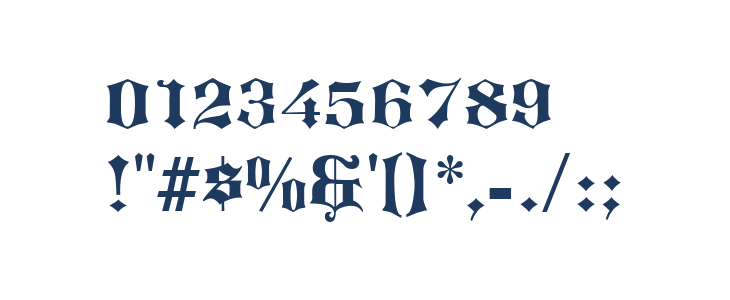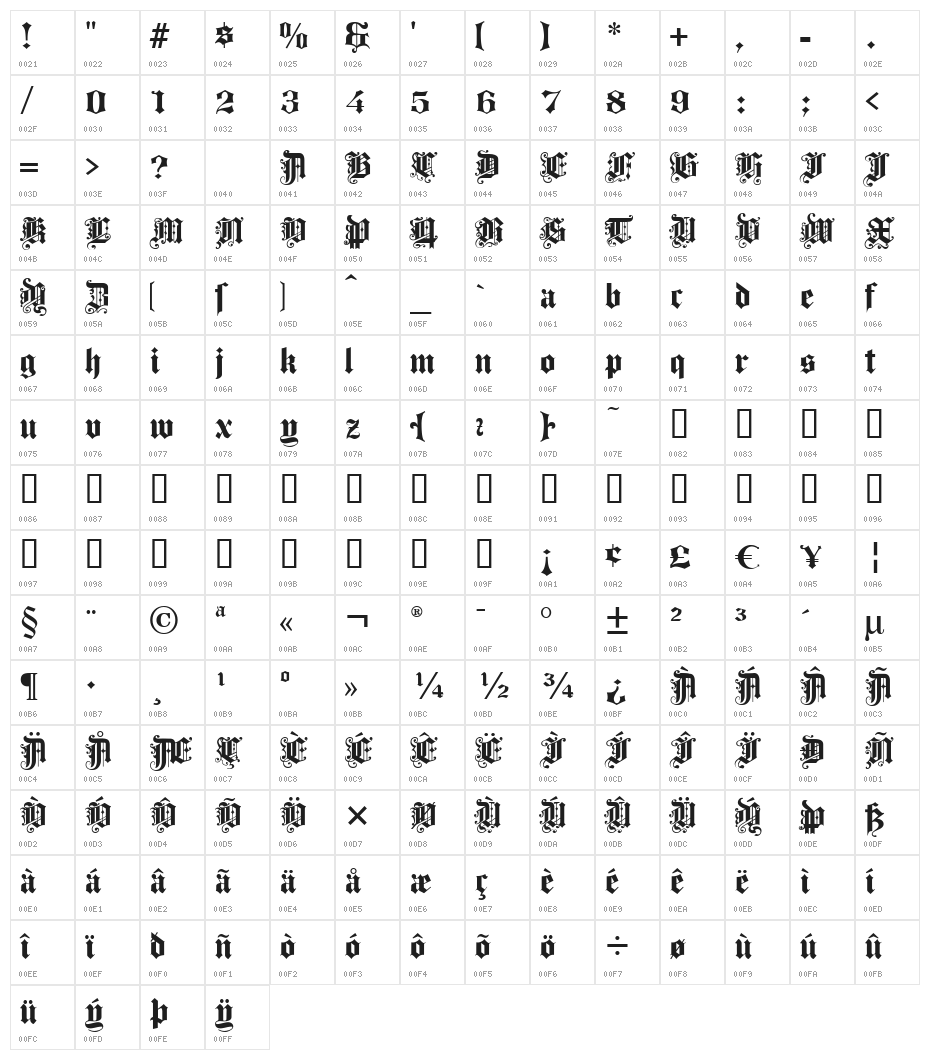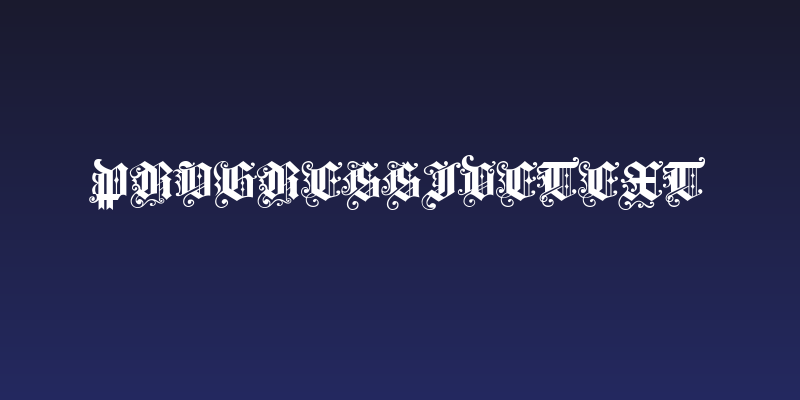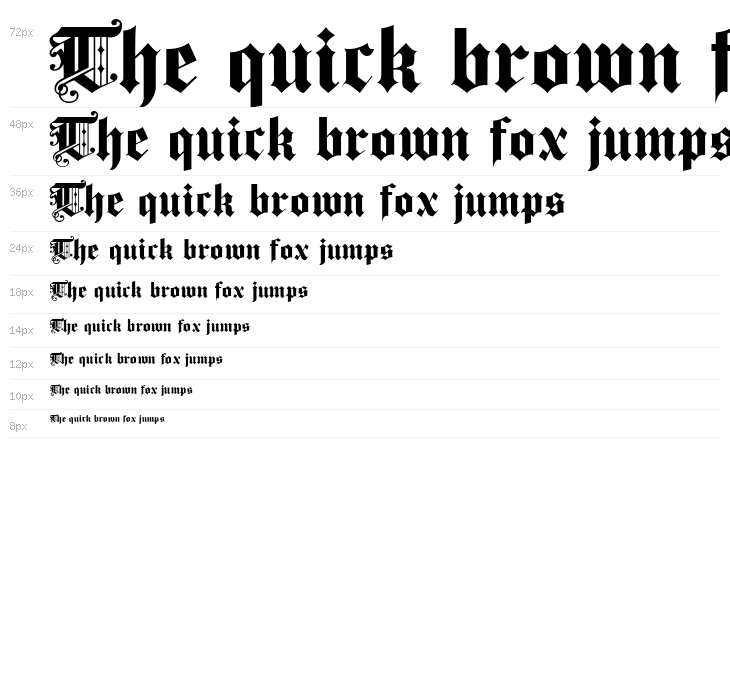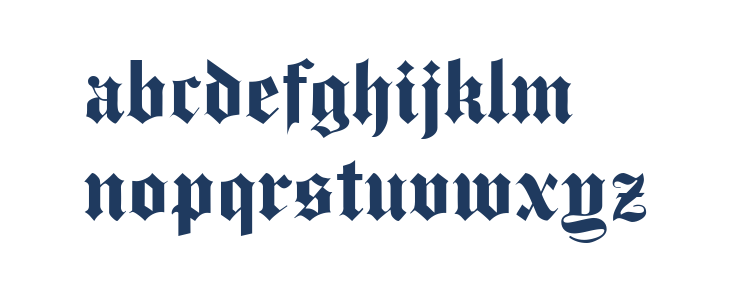
ProgressiveText Font
ProgressiveText Description
This font embodies the classic elegance and intricate detailing of traditional Blackletter styles. Each character is adorned with elaborate flourishes and sharp, angular lines that convey a sense of historical gravitas and sophistication. The uppercase letters are particularly ornate, featuring decorative elements that enhance their visual impact. The lowercase letters maintain a consistent style, with bold strokes and pointed serifs that ensure readability while preserving the font's distinctive aesthetic. The numerals and special characters are crafted with the same attention to detail, making them suitable for a variety of design applications. This font is ideal for projects that require a touch of vintage charm and a strong visual presence.
| Use Case | Headlines, Logos, Decorative text |
| Proposed Projects | Ideal for historical documents, certificates, wedding invitations, book covers, and branding that requires a vintage or gothic touch. |